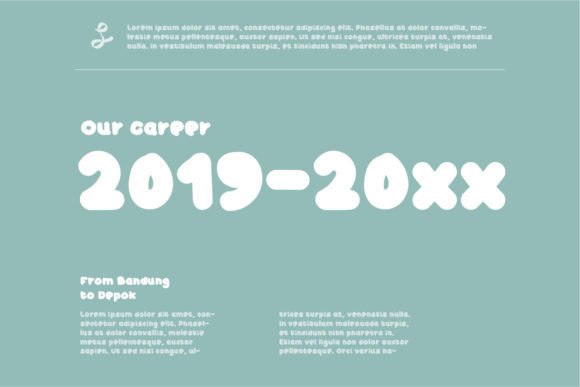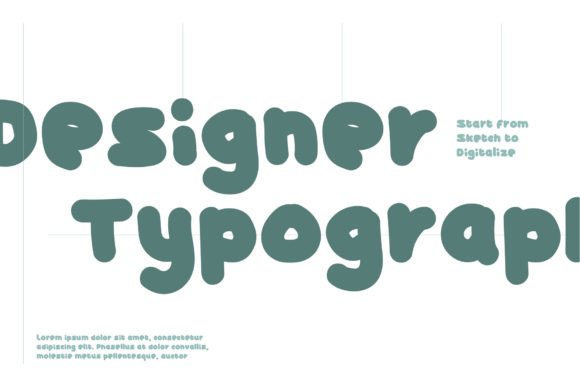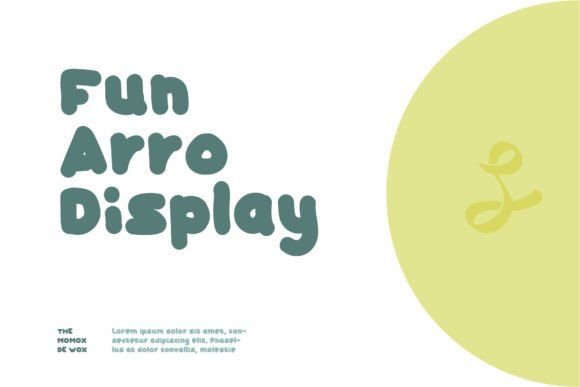
Introduction to Naninu Font
Have you ever been in the middle of a creative project, staring at a blank screen, and suddenly, an idea strikes you? The words start flowing, and your imagination runs wild. It’s in these moments that the right design resource can make all the difference. For designers looking to add a touch of whimsy and fun to their work, the Naninu Font is an incredible choice.
This high-quality display font is perfect for cartoon-related designs, children’s games, or any project that requires a playful and engaging aesthetic. With its unique and quirky style, the Naninu Font is a valuable addition to any designer’s toolkit, especially when working on projects with a transparent background or free download requirements.
Whether you’re a seasoned designer or just starting out, the Naninu Font is a must-have for any creative project that needs a little extra magic.
Key Features of Naninu Font
- Naninu Font is a high-quality, unique design resource ideal for creative projects that require a touch of elegance and sophistication.
- The Naninu Font features a transparent background, allowing users to easily combine it with other design elements and achieve a seamless look.
- The Naninu Font is offered in a single size, making it easy to use in various design contexts, from small text labels to large headlines.
- The Naninu Font’s unique, hand-drawn design elements and subtle texture make it an excellent choice for designers seeking to add a touch of personality to their creative projects.
Honest Review: Naninu Font
I recently stumbled upon the Naninu Font and was impressed with its high quality design. The free download made it easily accessible, and I was excited to incorporate it into my creative project.
What works well about the Naninu Font is its versatility. The transparent background allows for seamless layering, making it a great resource for designers. The font’s clean lines and modern aesthetic also make it suitable for a wide range of design applications.
- ✨ Clean lines and modern aesthetic
However, I did encounter some limitations. The font’s limited character set can be restrictive for complex designs, and the lack of bold and italic variations can make it difficult to emphasize text.
Overall, the Naninu Font is a solid design resource that’s worth considering for your next creative project. While it may have some limitations, its high quality and versatility make it a great addition to any designer’s toolkit.
Naninu Font
For the best results, use the Naninu Font in conjunction with a transparent background. This will allow you to create visually appealing graphics and designs. Experiment with different font sizes and styles to find the perfect look for your project.
The Naninu Font is ideal for a variety of creative projects, including logos, graphics, presentations, and documents. Its high-quality design and transparent background make it a versatile and valuable design resource.
What is the recommended font size for optimal readability with the Naninu Font?
The recommended font size for optimal readability with the Naninu Font is between 12pt and 24pt. However, this may vary depending on the specific design requirements and the intended use of the font. It’s always a good idea to test different font sizes to ensure the best results.